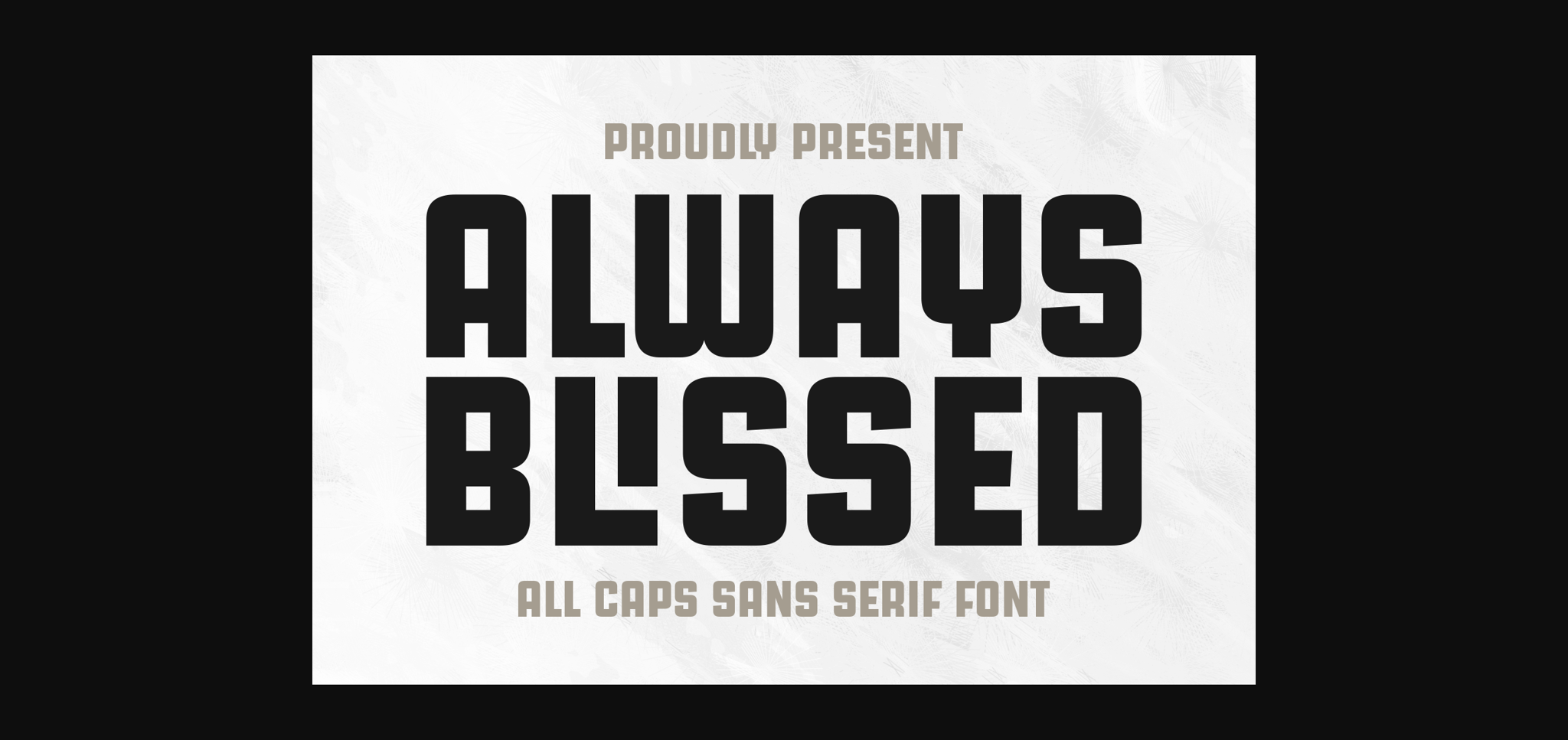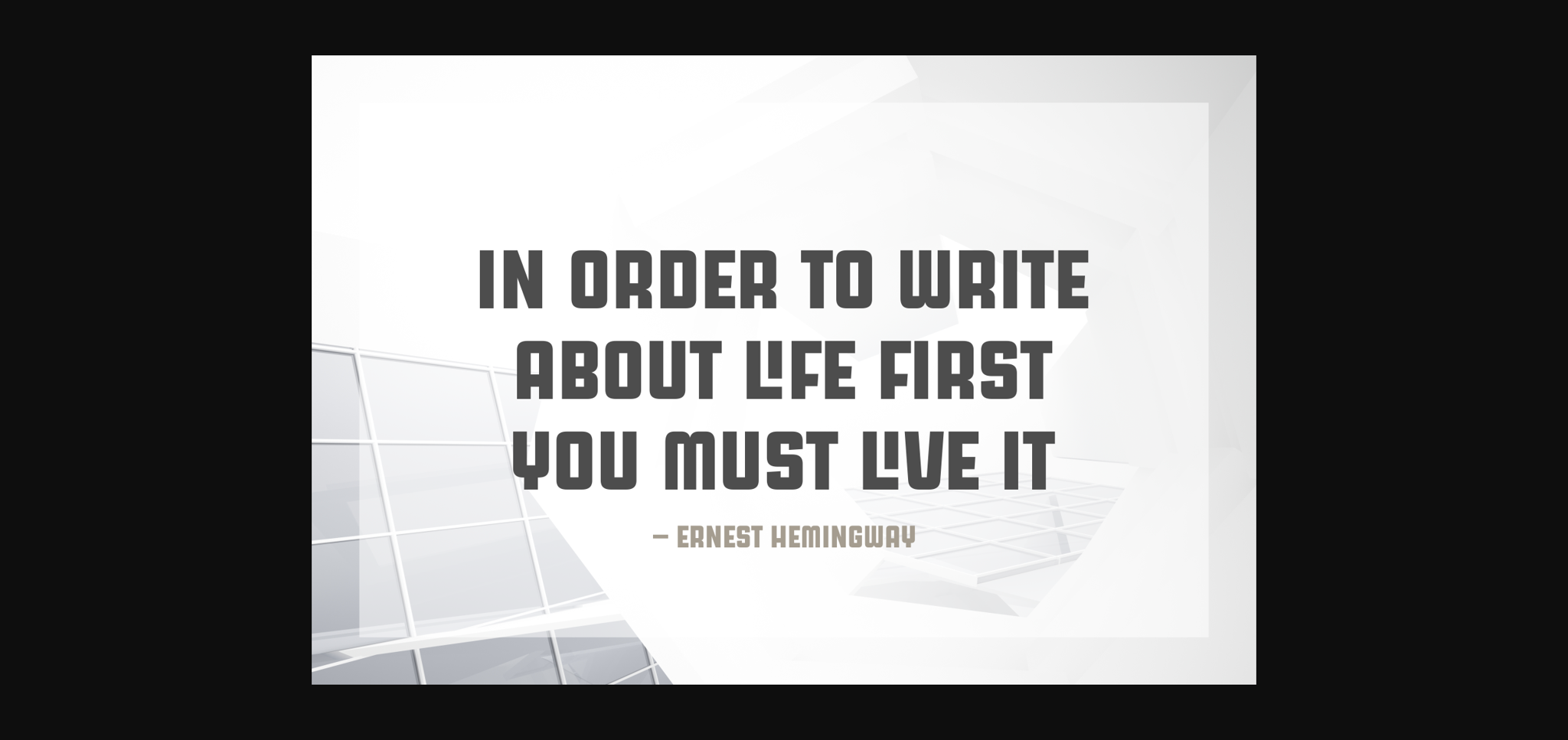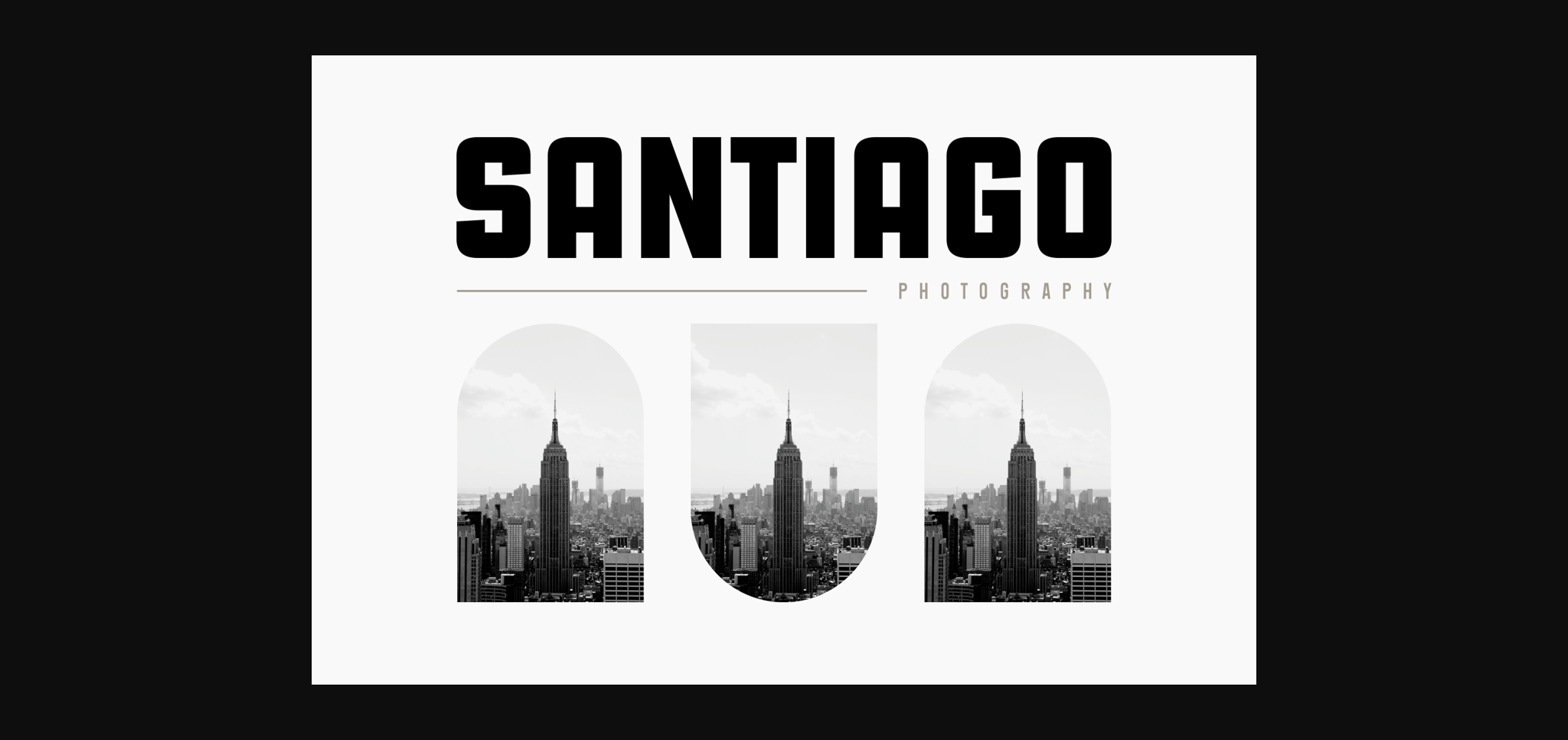
About Always Blissed Font
Always Blissed is a clean and stylish all caps sans-serif font. Its simple, modern design brings a touch of sophistication to any project. Perfect for headers, titles, or branding, Always Blissed delivers a sleek and timeless aesthetic. With an easy-to-read, uppercase format, this font ensures a crisp and contemporary look for your design needs. Embrace the simplicity and elegance of Always Blissed for a polished and modern vibe.